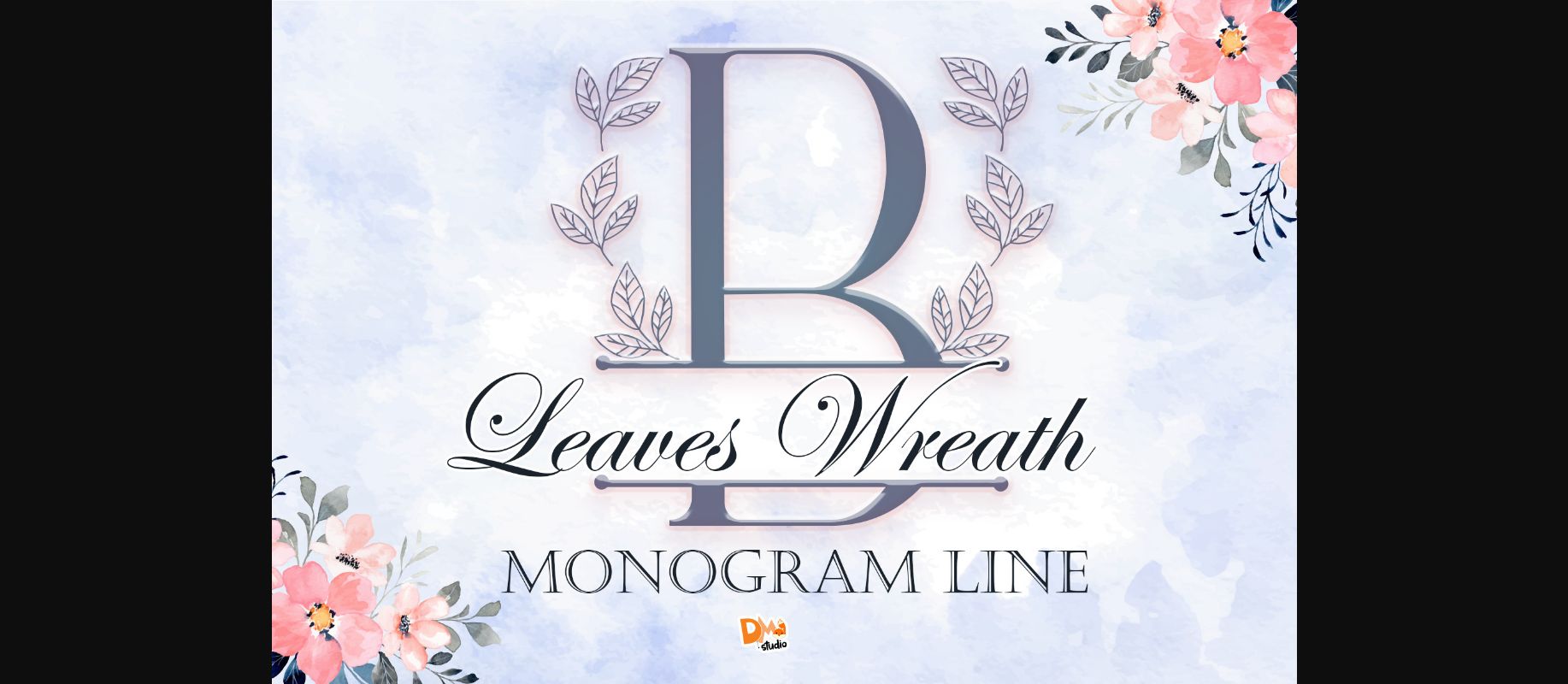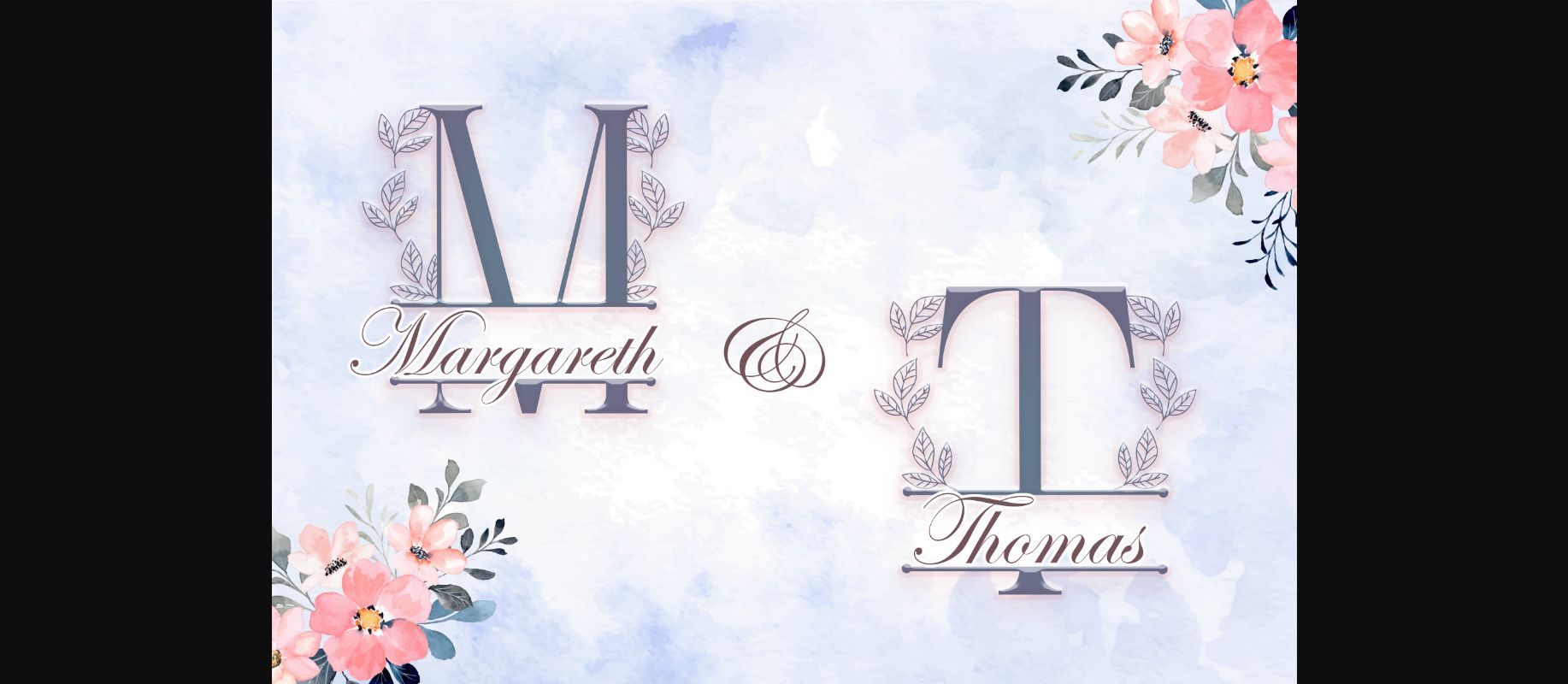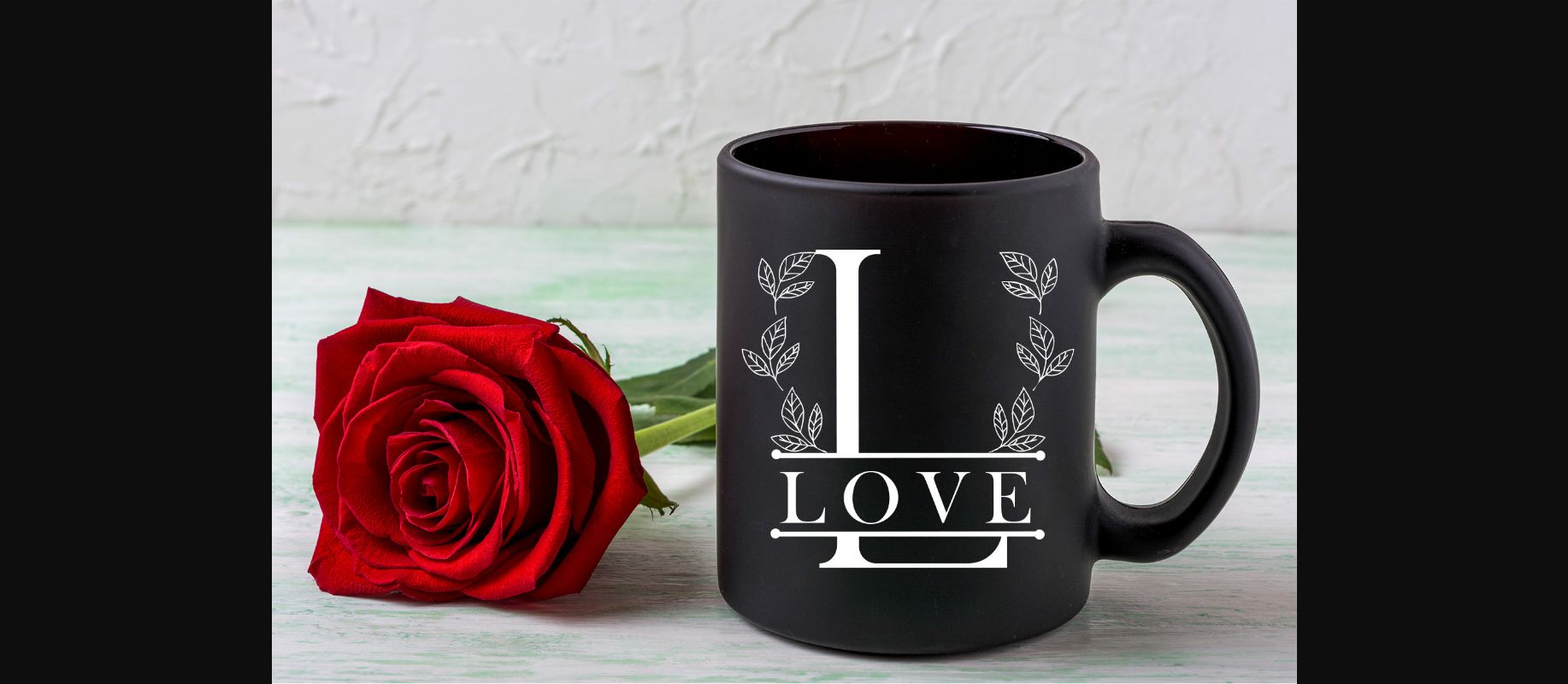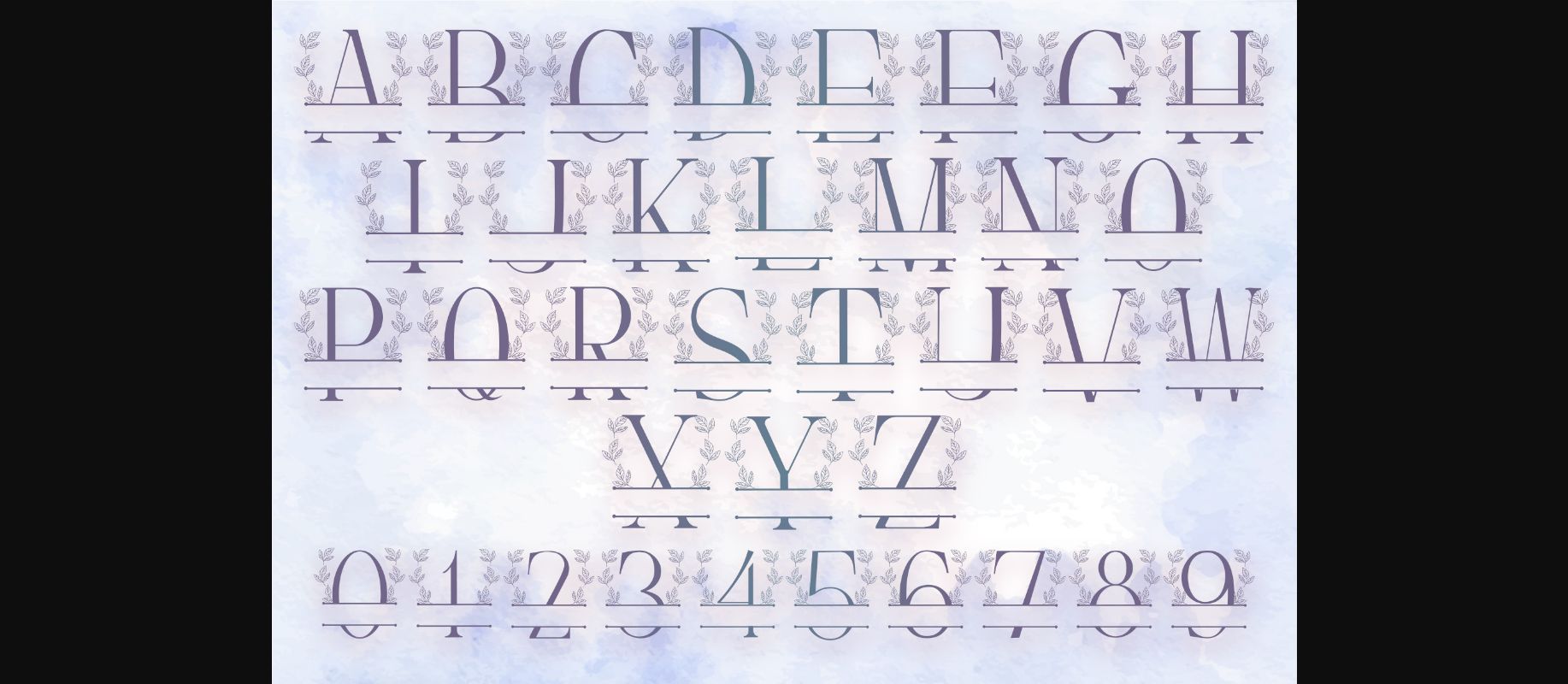
About Leaves Wreath Font
Leaves Wreath is a lovely, elegant, and unique decorative font. The solemn letters combined with the fresh and delicate flowers create a stunning typeface that will impress every time!